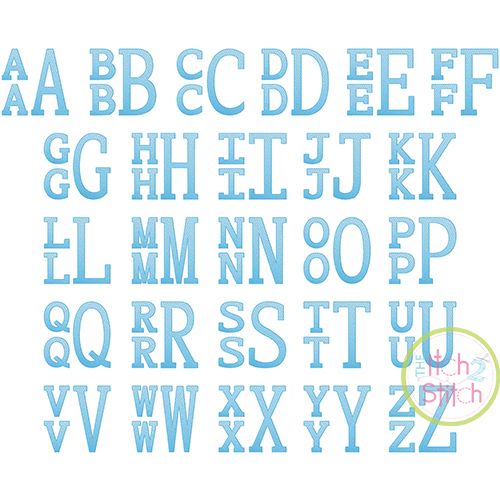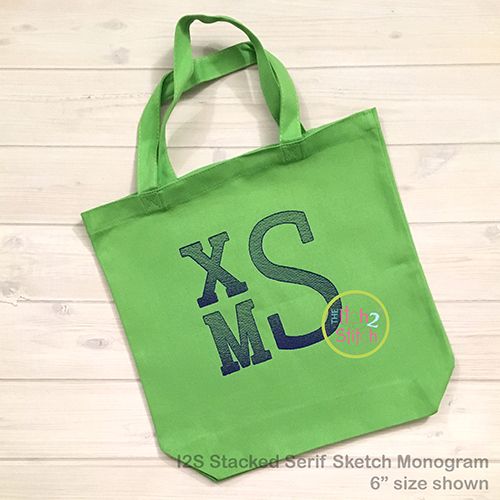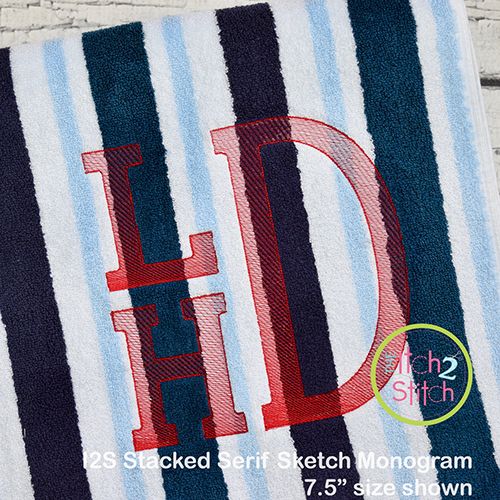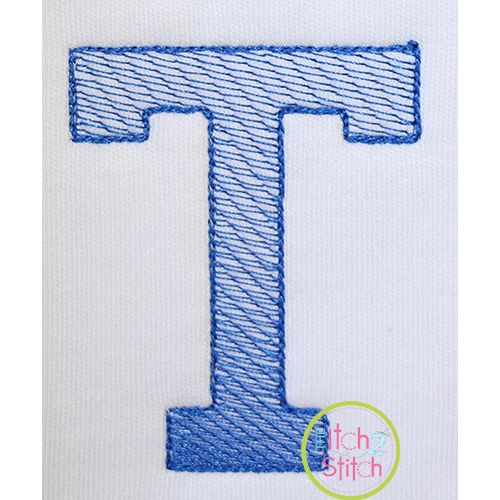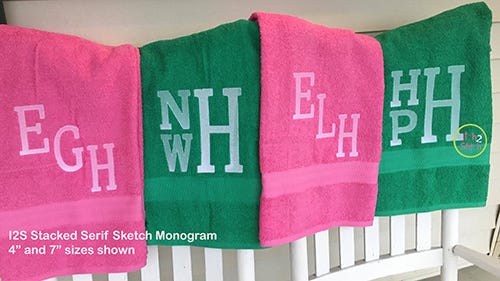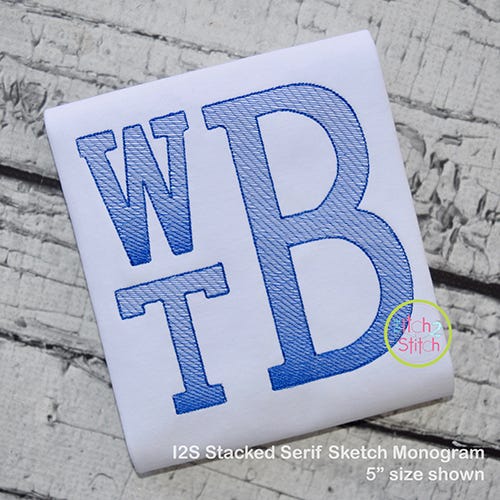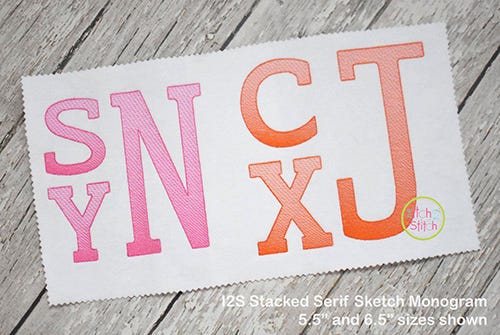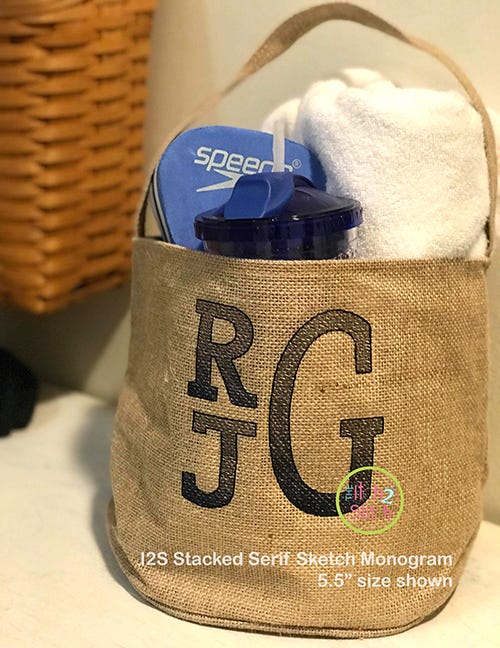
Stacked Serif Sketch Monogram Embroidery Font
You will receive all Aa-Zz letters (52 files) in twelve sizes. For each size of the monogram there are two styles of letter. Use two "lowercase" letters stacked on the left and a "capital" letter on the right from the same size folder to create the square shaped monogram.
Please note this is not applique, nor is it a traditional satin or fill stitch font. The light and airy "sketch" fill pattern allows for a quick stitch out. The space between each line of stitching varies such that it is more dense at the bottom than the top of each letter to create the shading effect. The letter is finished off with a triple bean stitch outline. Please refer to the close up image. We do not recommend resizing this font in software. Small satin stitch sizes sold separately.